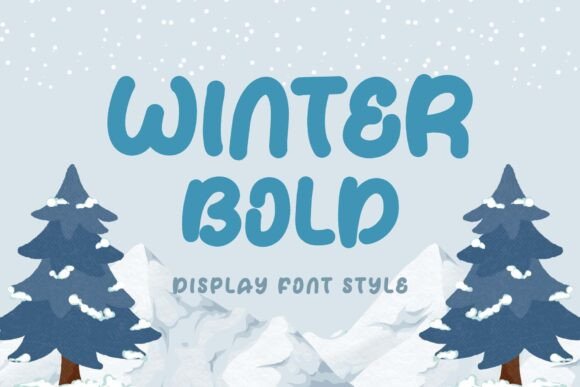
Winter Bold: The Cute Display Font for Seasonal Branding
I remember the exact moment my small business needed a change. It was late November, and I was staring at a stack of plain white packaging boxes for my handmade winter candles. The labels were functional but boring, lacking the warmth and personality that made my brand feel special. My customers loved the scent, but the visual identity felt cold and impersonal. That afternoon, while scrolling through design resources, I discovered Winter Bold, a cute display font that immediately transformed how I viewed my own branding. It wasn't just about adding text; it was about injecting a sense of holiday cheer and professional polish into every single touchpoint.
This experience highlighted a crucial truth for any small business owner: typography is not merely decoration; it is the voice of your brand. When you are selling physical products or digital services, the fonts you choose dictate the first impression a customer has before they even read your description. Winter Bold is a cute display font that bridges the gap between playful charm and commercial viability. Whether you are updating a menu for a cozy café or creating festive banners for an online shop, this typeface offers the versatility needed to make your business look consistent, memorable, and trustworthy.
Winter Bold for Christmas Banners and Holiday POS Materials
When I first tested Winter Bold on Christmas banners, the results were immediate and striking. This cute display font possesses a unique character that feels handcrafted yet structured enough for professional use. Unlike generic holiday scripts that can become illegible when scaled down, Winter Bold maintains its clarity across various mediums. I used it to redesign our point-of-sale (POS) signage, creating eye-catching displays that guided customers through our holiday collection. The bold weight ensures that even from a distance, the message is clear, while the rounded edges add a softness that invites interaction rather than intimidating the viewer.
The multilingual support included in this set of Fonts was another game-changer for my seasonal promotions. As my business grew to include international shipping, I needed graphics that could speak to a global audience without losing their festive spirit. With capital letters, lowercase letters, numbers, and punctuation all perfectly styled, I could create cohesive marketing materials for different regions. Using Winter Bold for winter holidays allowed me to maintain a unified brand voice whether the text was in English, Spanish, or French. It turned what could have been a chaotic mix of languages into a seamless, polished campaign that felt authentic and welcoming.
Why Display Fonts Matter for Seasonal Sales Graphics
In the world of e-commerce, your banner images are often the only visual cue a potential customer has before clicking. A standard sans serif font might be clean, but it rarely evokes emotion. Winter Bold is a cute display font designed specifically to capture attention during high-stakes seasons like December. I applied this font to our Instagram story templates and Facebook ads, noticing an immediate uptick in engagement. The distinct shape of the letters creates a visual rhythm that draws the eye, making your promotional content stand out in a crowded feed. For businesses looking to boost sales during peak seasons, investing in a high-quality creative font like this is essential for standing out.
Winter Bold for Product Labels and Boutique Packaging Design
After seeing the success with my digital banners, I decided to take the leap and apply Winter Bold to my physical product labels. The transition from screen to print required careful consideration, as the texture of the paper and the size of the label would affect readability. However, the inclusion of numbers and punctuation in the font family made labeling inventory and pricing incredibly straightforward. I used the font on my candle jars, ensuring the product name popped against the background while remaining elegant and legible. The result was a packaging design that looked far more expensive than it actually was, elevating the perceived value of my goods.
For boutique owners and handmade sellers, consistency is key to building a recognizable brand identity. By using Winter Bold across all packaging elements—from the main label to the thank-you cards tucked inside the box—I created a cohesive unboxing experience. This font works beautifully as a headline font for short phrases, allowing you to highlight key selling points like "Handmade," "Eco-Friendly," or "Limited Edition." It pairs exceptionally well with a clean sans serif font for body text, providing a balanced contrast that guides the customer's eye naturally. This combination ensures that while the brand name is bold and memorable, the care instructions and details remain easy to read.
Enhancing Brand Perception with Strategic Typography
Typography plays a massive role in how customers perceive the quality of your products. When I switched to Winter Bold for my skincare labels, customers began commenting on how "premium" and "thoughtful" my brand appeared. The font's personality conveys a sense of care and attention to detail that resonates with modern consumers. It signals that you are not just mass-producing items, but curating experiences. This is particularly important for businesses in the beauty, food, and lifestyle sectors where aesthetics drive purchasing decisions. By choosing a commercial font with such strong character, you are effectively communicating your brand values without saying a word.
Winter Bold for Social Media Templates and Online Shop Visuals
Building a consistent online presence requires a library of versatile design assets, and Winter Bold fits perfectly into this ecosystem. I utilized the font to create a series of social media graphics that promoted my new winter collection. The ability to use both uppercase and lowercase letters allowed me to play with hierarchy, emphasizing certain words while keeping the overall layout light and airy. For example, using the capital letters for "SALE" in bold while keeping the rest of the text in lowercase created a dynamic visual interest that kept viewers engaged longer.
Furthermore, the font's compatibility with modern typography styles means it integrates seamlessly into website headers and email newsletters. I updated my online shop banner to feature Winter Bold, which immediately gave the site a fresh, seasonal update. This simple change improved the user experience by making navigation clearer and the brand message more compelling. For bloggers and content creators, having a reliable font that supports multilingual characters is invaluable for maintaining a professional look across different platforms. Whether you are designing a flyer, a website banner, or a digital ad, Winter Bold provides the flexibility needed to adapt to any medium while retaining its core identity.
Ultimately, upgrading your brand with a premium font like Winter Bold is an investment in your business's future. It transforms ordinary communications into memorable brand moments. From the initial click on a social media post to the final unboxing of a product, the right typography builds trust and loyalty. If you are ready to elevate your visual identity and make your business stand out this season, exploring the capabilities of Winter Bold is a logical and rewarding next step.